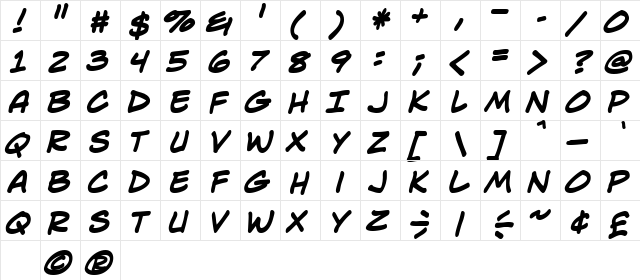
Lint McCree BB Bold
Design Context for Lint McCree BB Typeface
Lint McCree BB is a composed and adaptable typeface that performs quietly and consistently across a wide range of design contexts. The heavy weight commands attention and anchors typographic hierarchies.